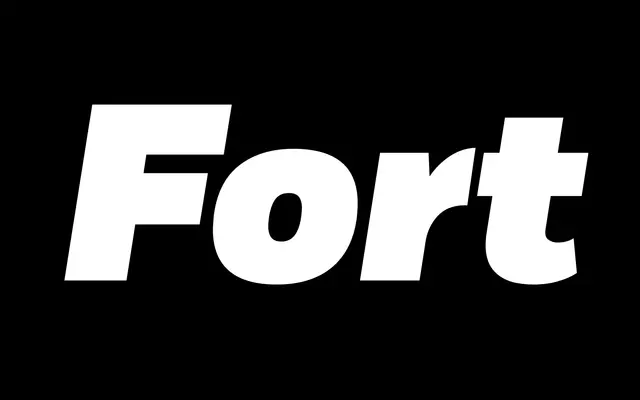
Fort
MCKL · Jeremy Mickel · 2012
A contemporary grotesque by Jeremy Mickel spanning 48 styles across three widths and eight weights, with squared shoulders and carefully redrawn slanted italics.
Designed by Jeremy Mickel and published in 2012, Fort grew from graphic design practice and a need for a versatile, high-performance sans. Squared shoulders, distinctive counterforms in rounded characters and a uniform texture across the weight range give it enough character for display work while remaining legible and dependable at small sizes. The family covers Extra Condensed, Condensed and regular widths, each running from Thin to Black in roman and italic.
Fort is a contemporary grotesque sans-serif with squared shoulders and carefully drawn italics, placing it squarely in the grotesk tradition rather than geometric or humanist sub-styles.